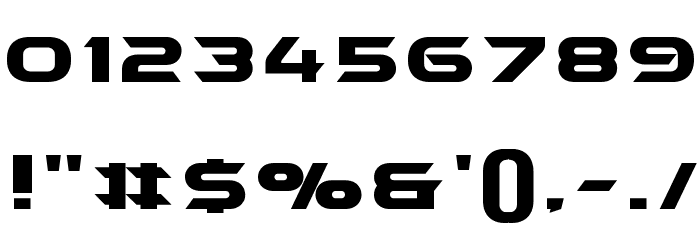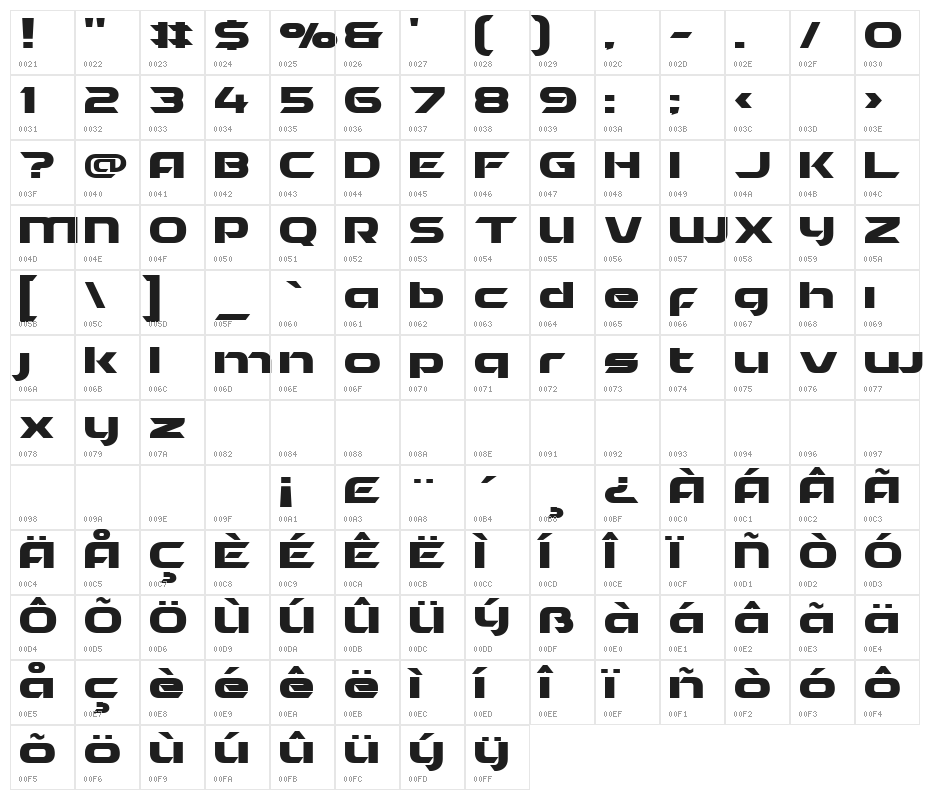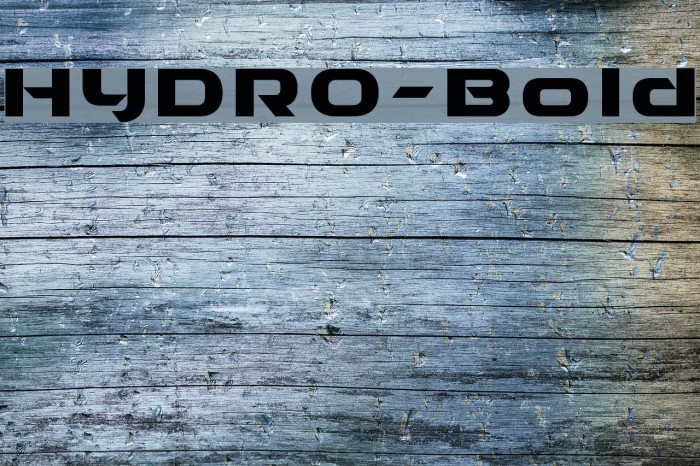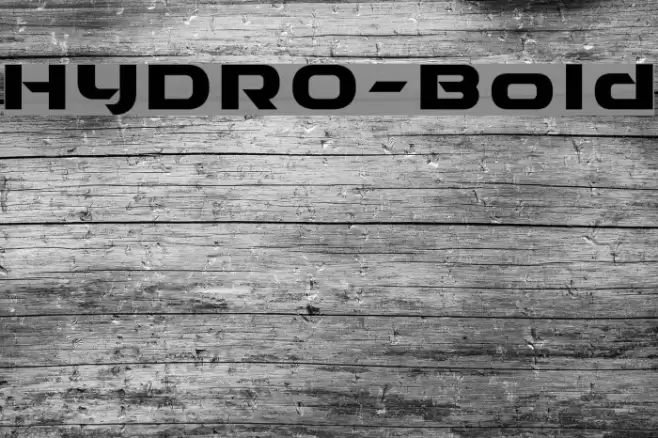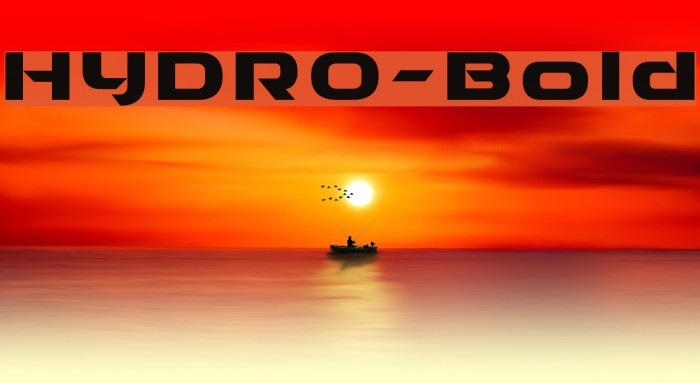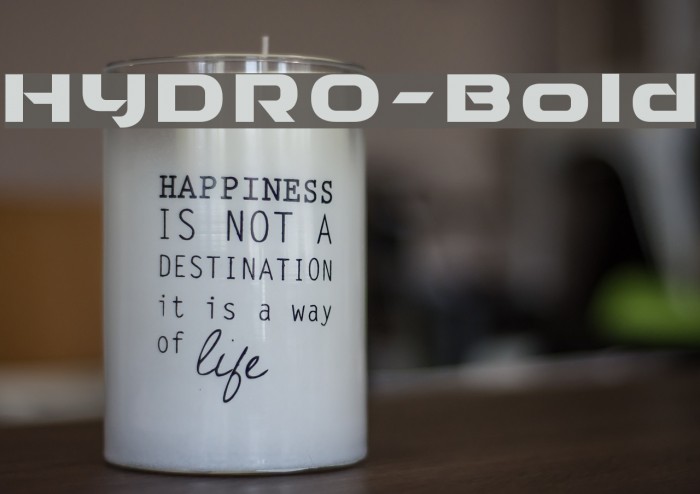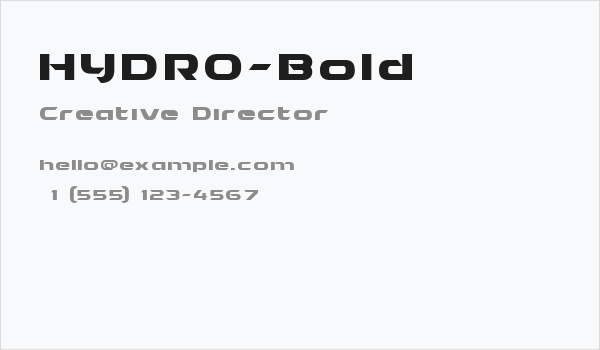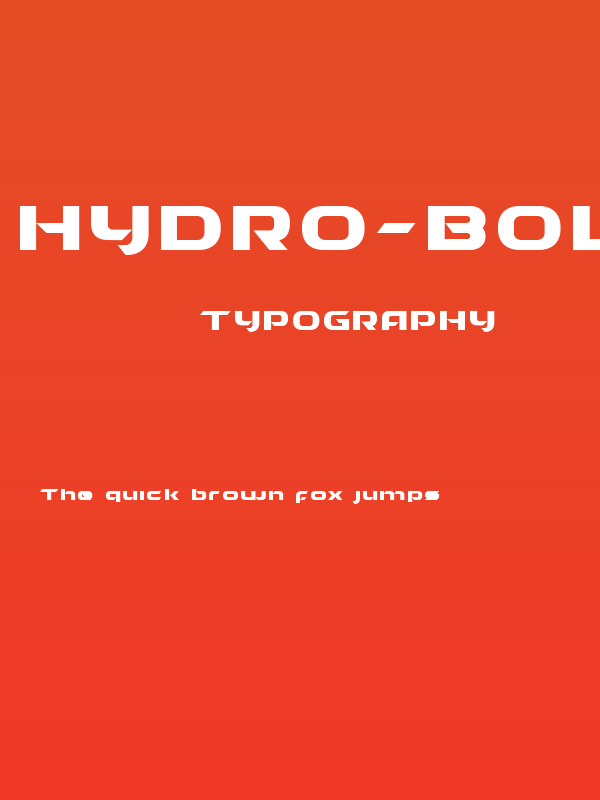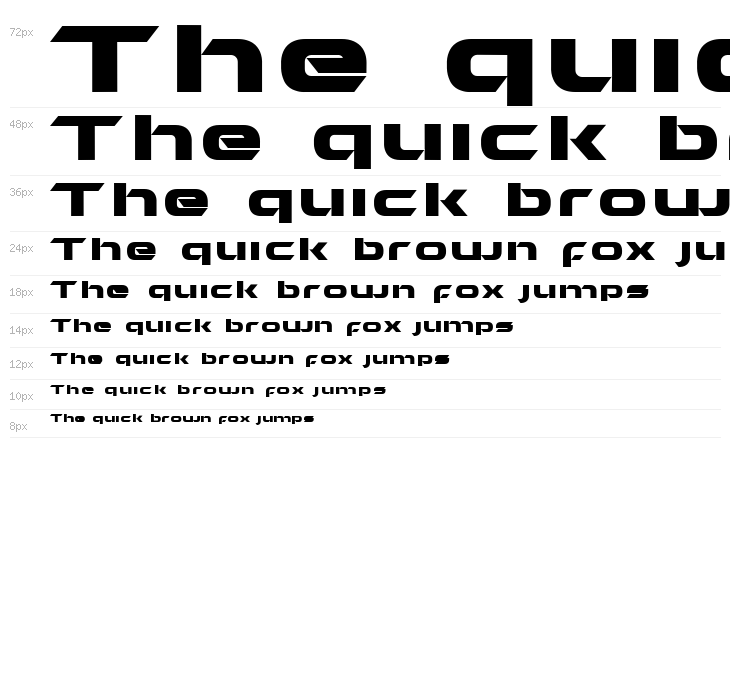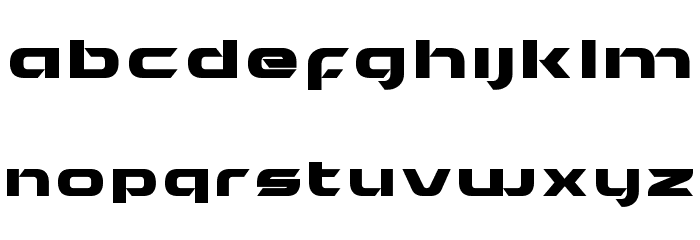
HYDRO-Bold Font
HYDRO-Bold Description
This font features a bold and futuristic design with a geometric structure. The characters are crafted with sharp angles and clean lines, giving it a modern and dynamic appearance. The uppercase and lowercase letters maintain a consistent style, with a slight slant that adds a sense of motion. The numerals and special characters are designed to complement the overall aesthetic, making it suitable for a variety of digital and print applications. The font's unique style is ideal for projects that require a strong and impactful visual presence.
Proposed ProjectsIdeal for technology branding, video game titles, sci-fi posters, and modern advertising.